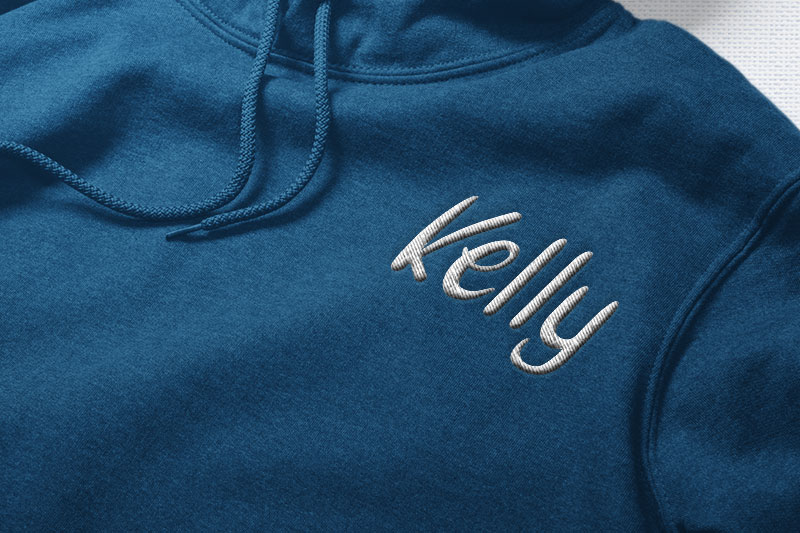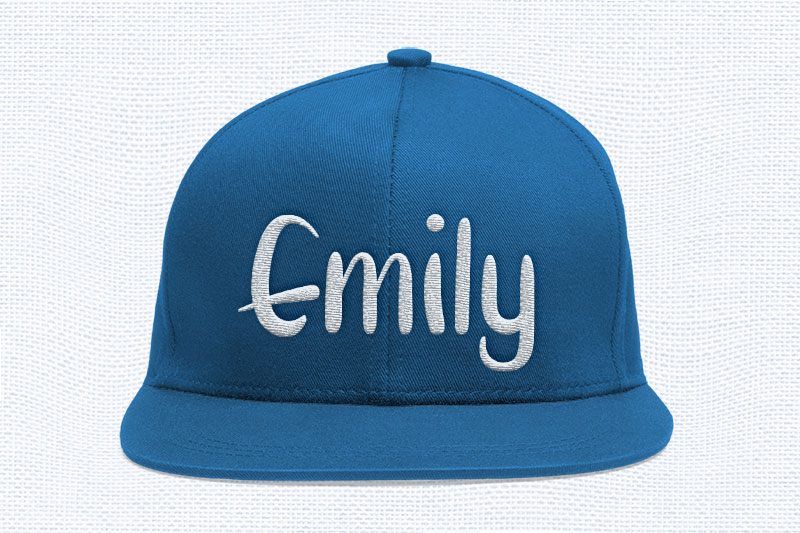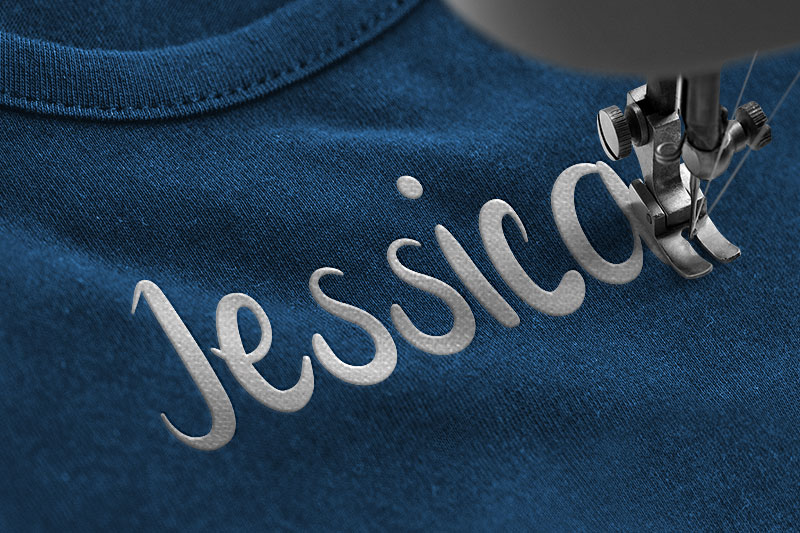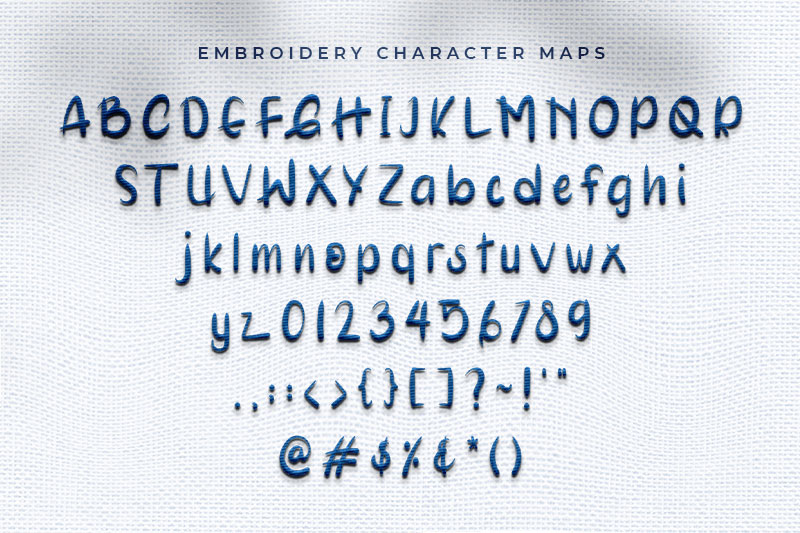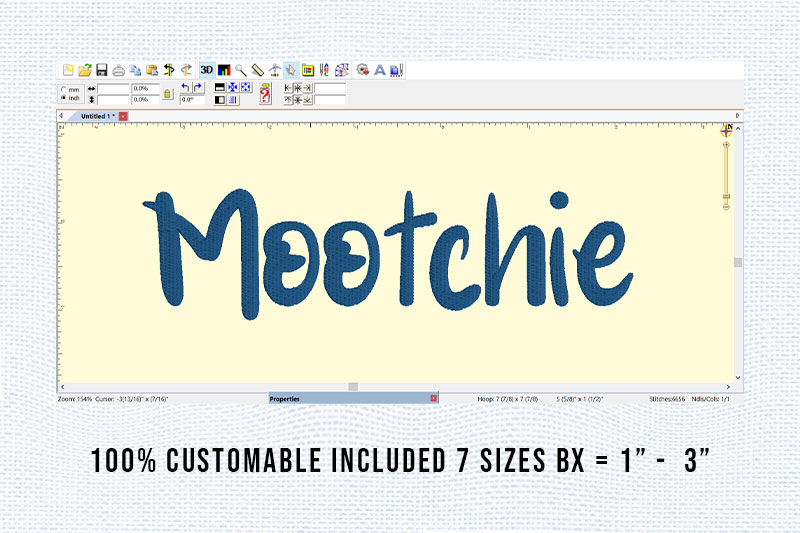
Embroidery Font provides a wide selection of font types that have interesting characteristics. This time Mootchie Embroidery Font is one of the best choices among other fonts. This font uncovered strokes giving an aesthetic and modern impression. With unique characteristics, Mootchie Embroidery Font is still relatively easy to distinguish between letters.
Seeing the explanation, Mootchie Embroidery Font is legible. This font is suitable for embroidery in both large and small sizes. It will be obvious, as long as it is not filled with excessive ornamentation. When Mootchie Embroidery Font stands alone, it already has artistic value and looks attractive.
Mootchie Embroidery Font is a typeface that is well-suited for writing on modern equipment. Mootchie Embroidery Font looks good in the t-shirt, hat, and others. In its application, Mootchie Embroidery Font can choose various font sizes and the appropriate file types.